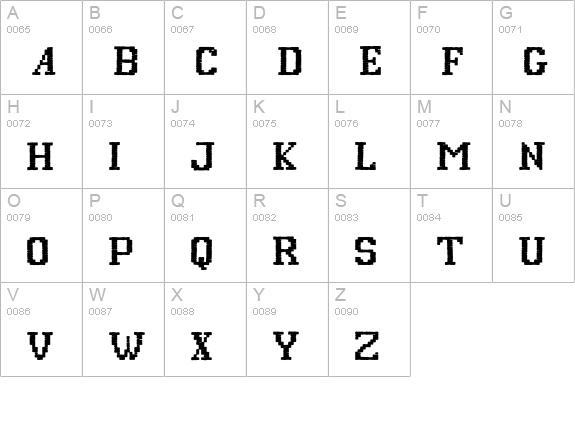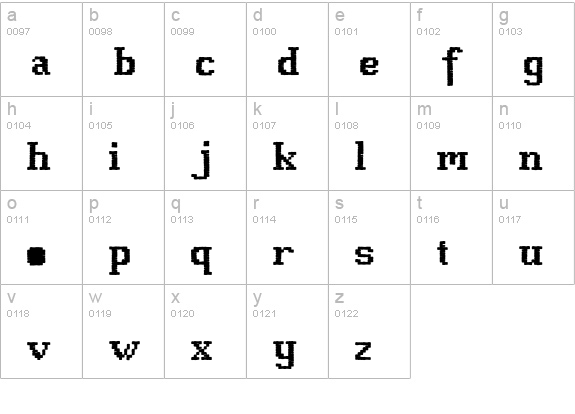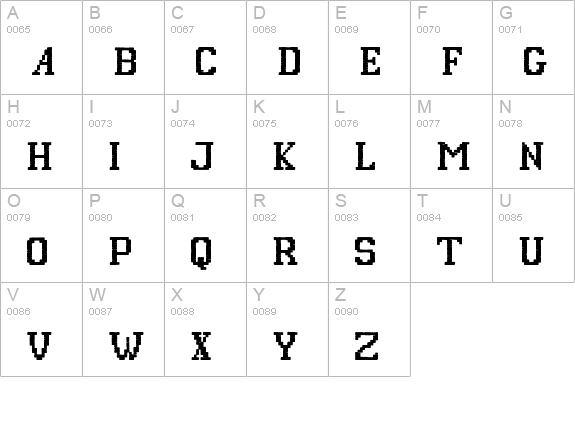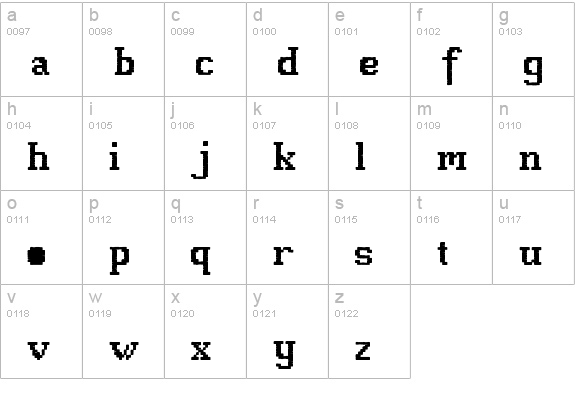
P22FolkArt-Stitch Font Details
P22FolkArt-Stitch font is a charming and whimsical typeface that will transport you to the heart of folk art. With its hand-stitched aesthetic, this font exudes a sense of warmth and craftsmanship that is perfect for adding a touch of nostalgia to your designs. Each character of P22FolkArt-Stitch font is meticulously crafted to resemble the art of embroidery, with delicate stitching and intricate details that give it a unique and handmade feel. Whether you're working on a vintage-inspired project, a folk art illustration, or simply want to infuse your designs with a touch of rustic charm, this font is sure to captivate your audience. But what makes P22FolkArt-Stitch font even more special is that it is free. Yes, you read that right! This delightful typeface is freely available to download at FontsMarket.com, making it accessible to anyone who wants to add a touch of folk art to their designs without breaking the bank. So go ahead and embrace the beauty of handcrafted art with P22FolkArt-Stitch font. Download it for free at FontsMarket.com and let your creativity soar. Whether you're creating invitations, posters, logos, or any other design, this font will bring a touch of whimsy and nostalgia that is sure to make your work stand out.